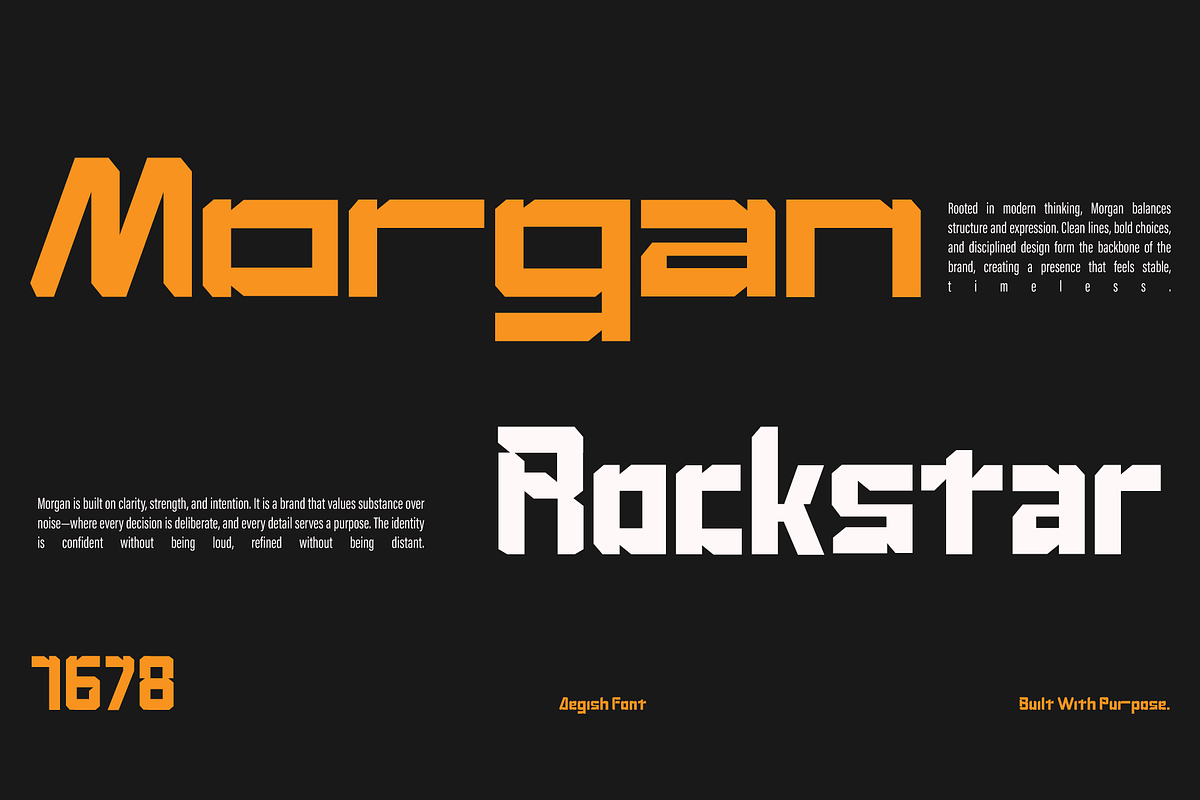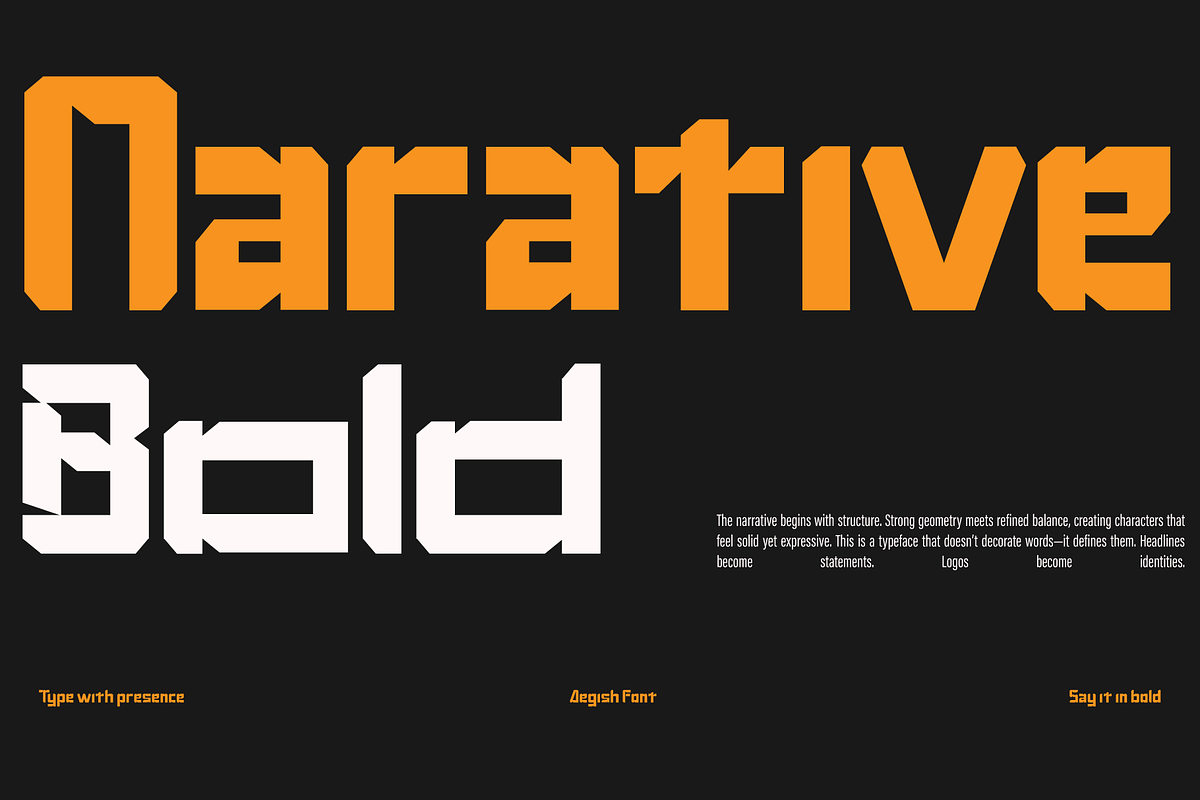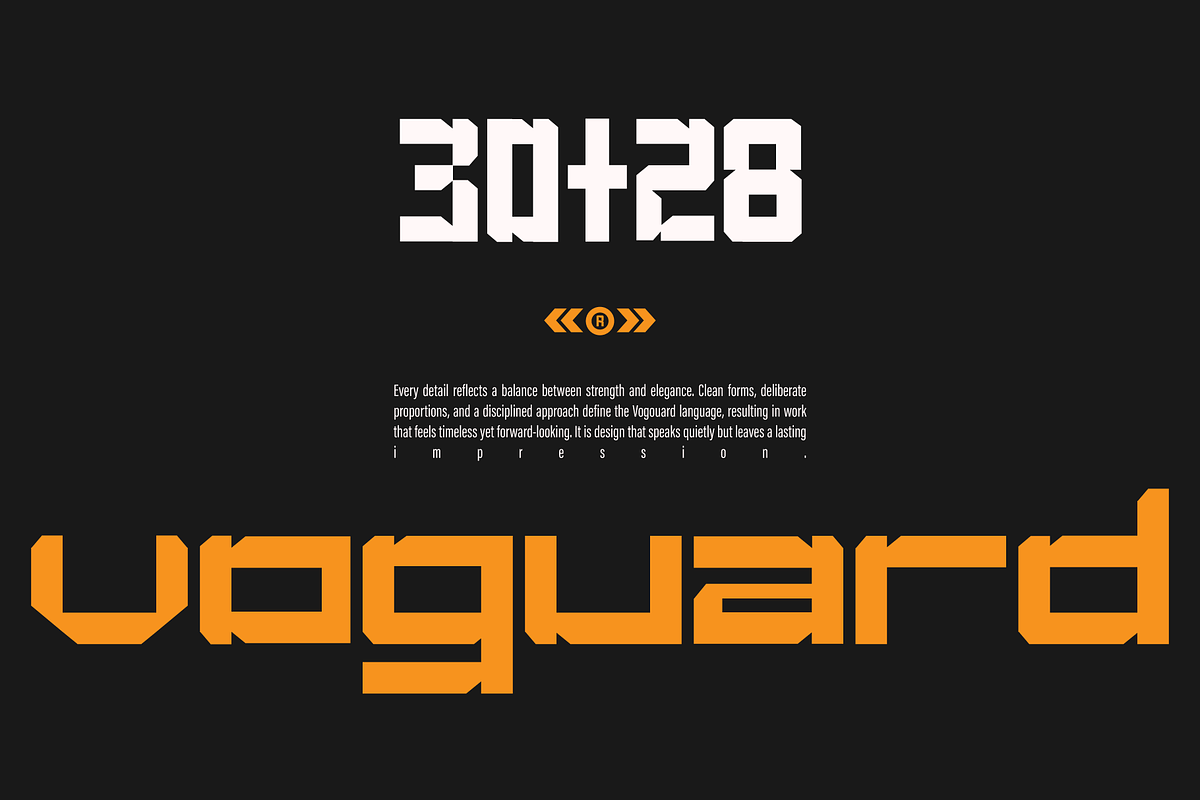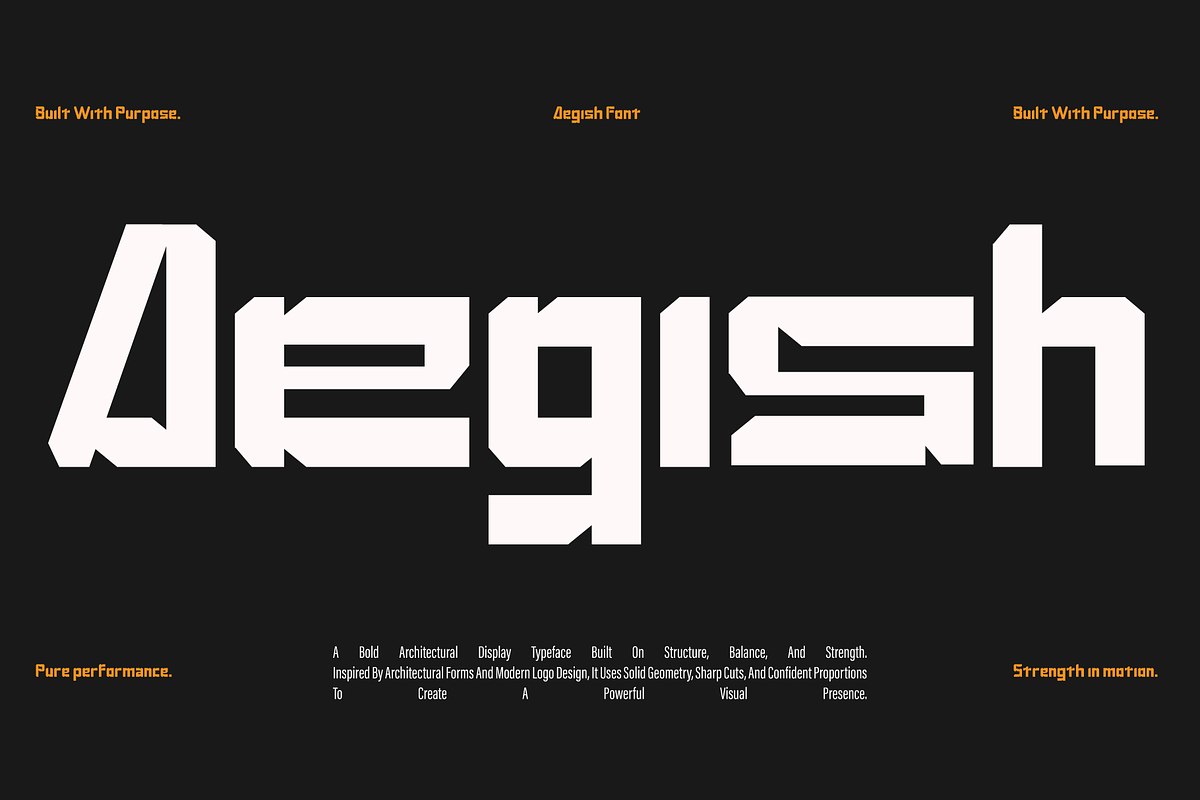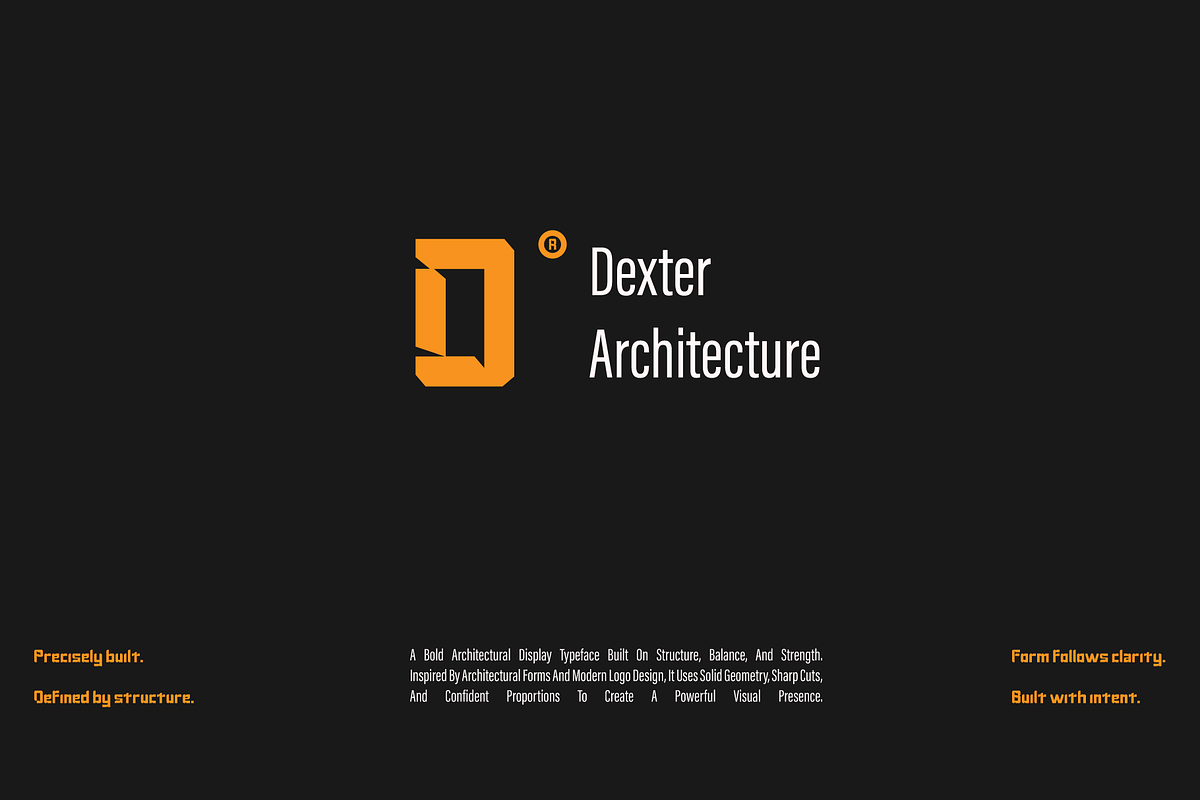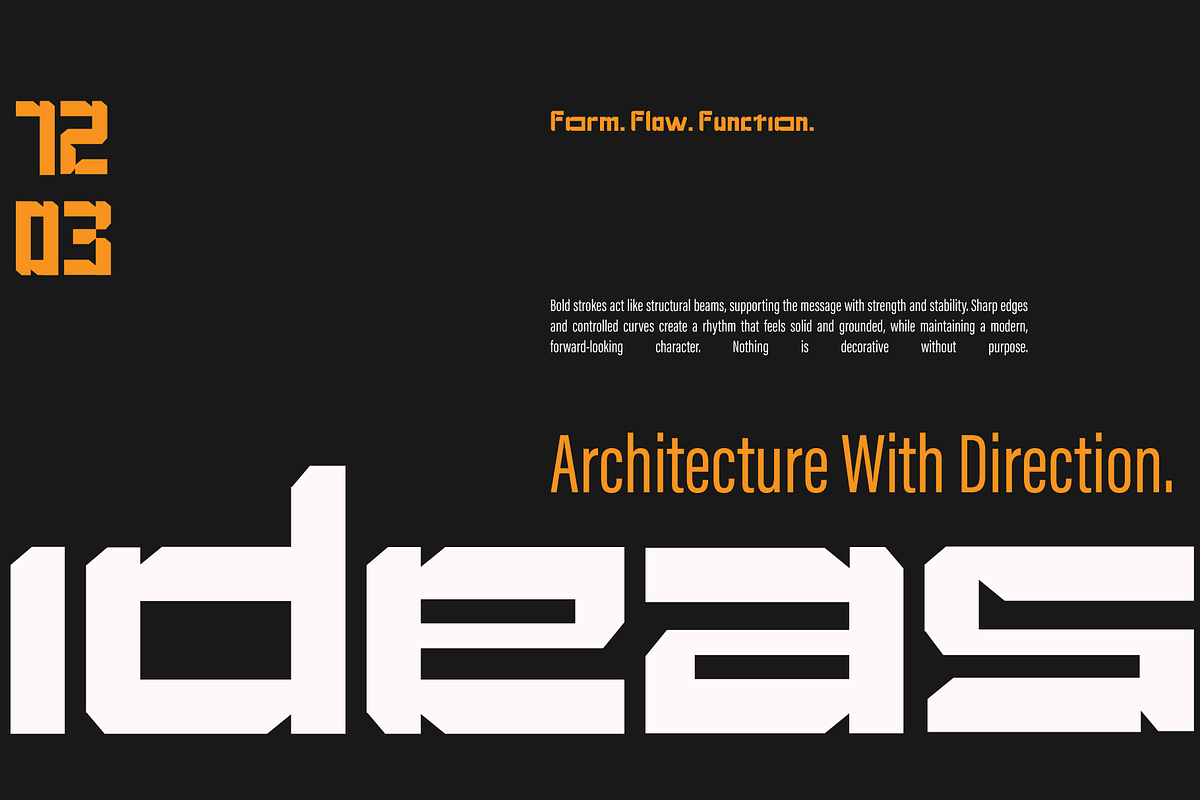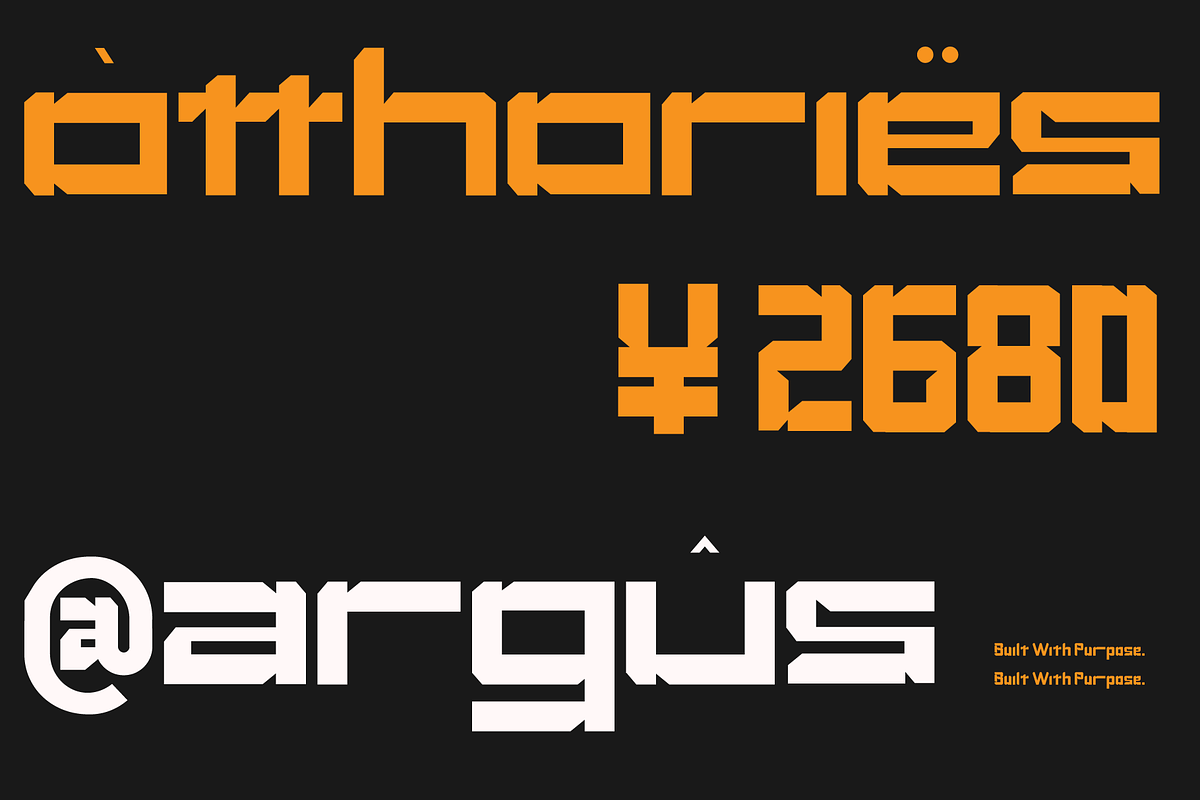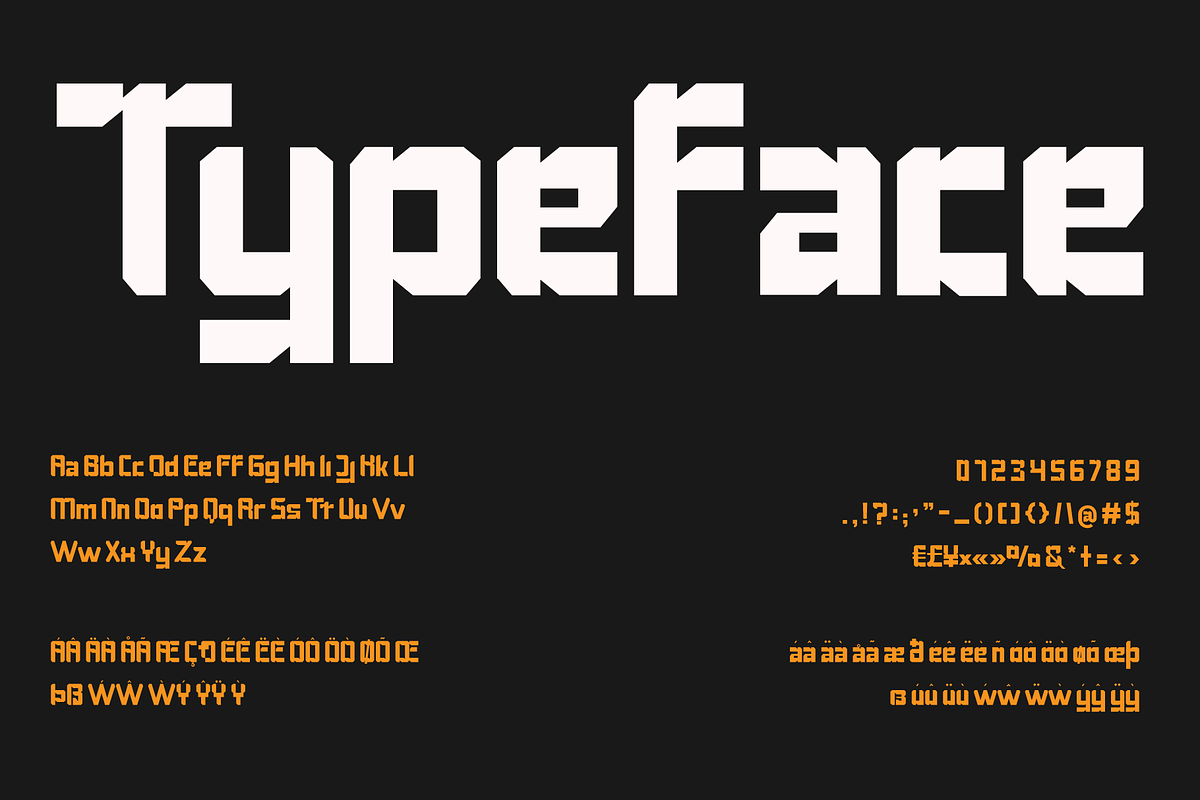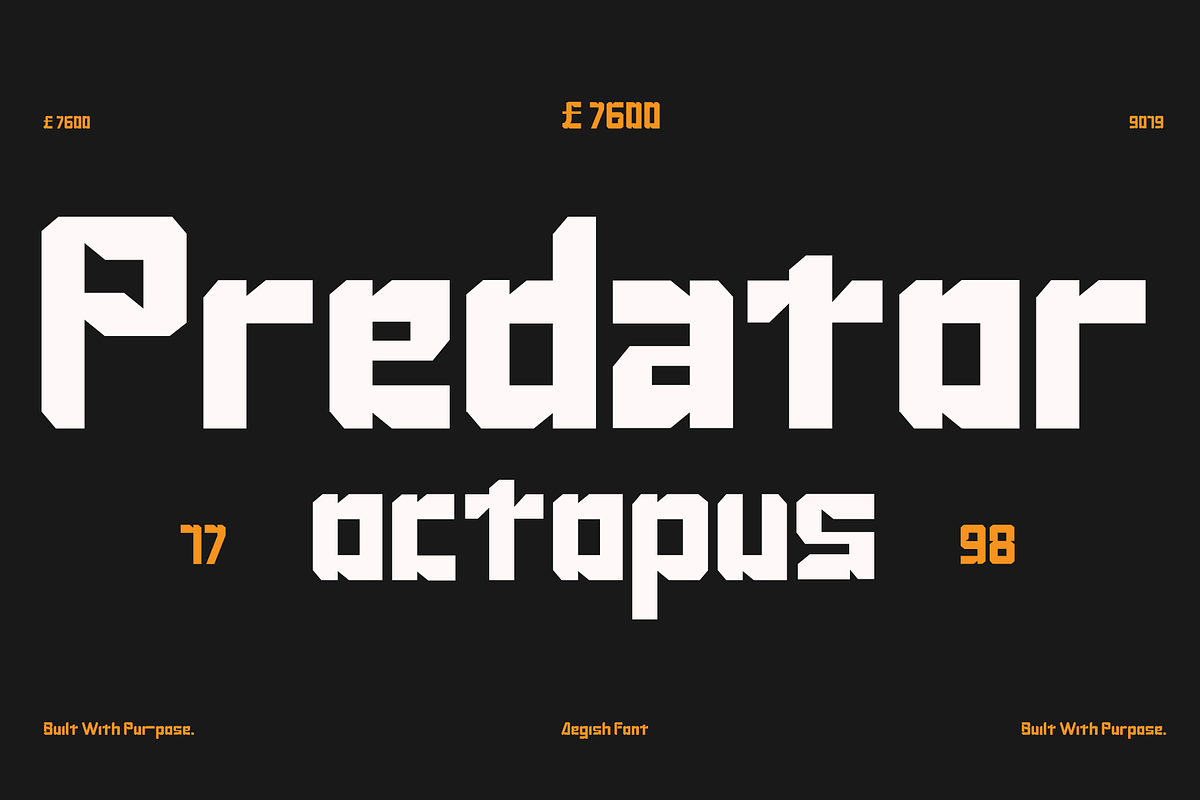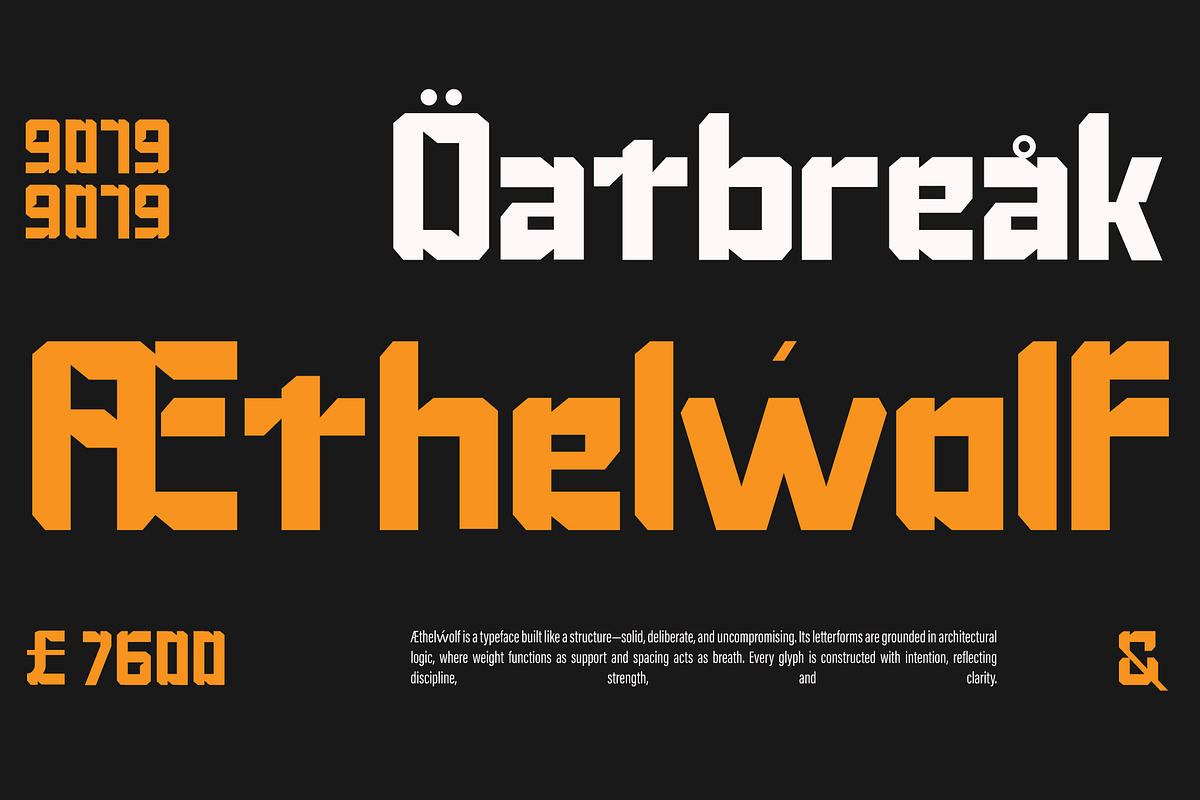
Aegish
Bold Architectural Sport Display Font for Logos & Branding
Inspired by architectural structure, athletic energy, and bold logo design, this font is built for strong visual impact. Clean geometry meets dynamic proportions, creating a typeface that feels solid, fast, and intentional. Designed to perform at any scale, it’s ideal for logos, branding, headlines, sports visuals, and modern architectural concepts.